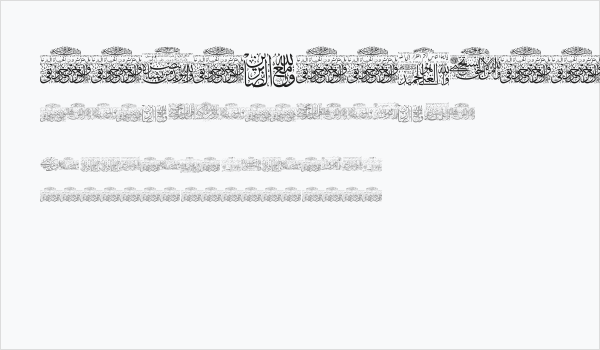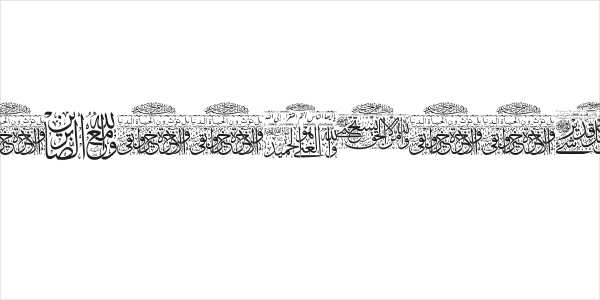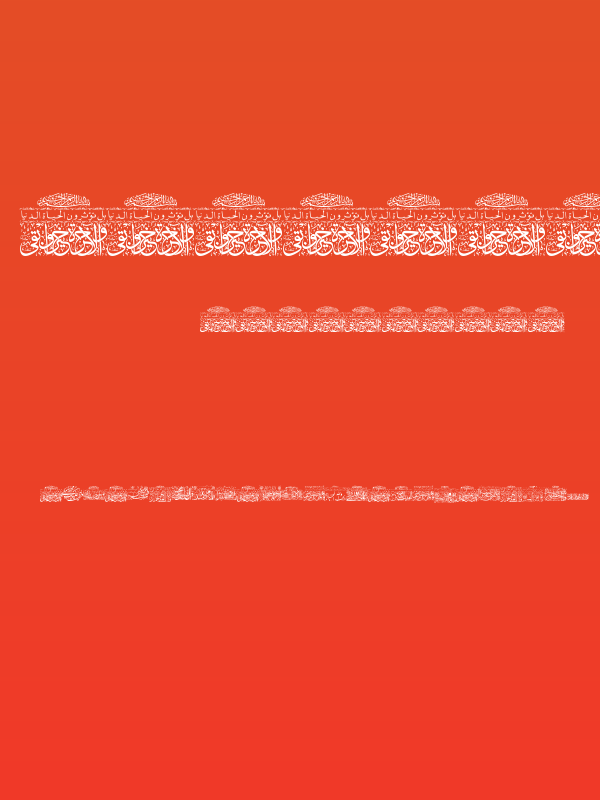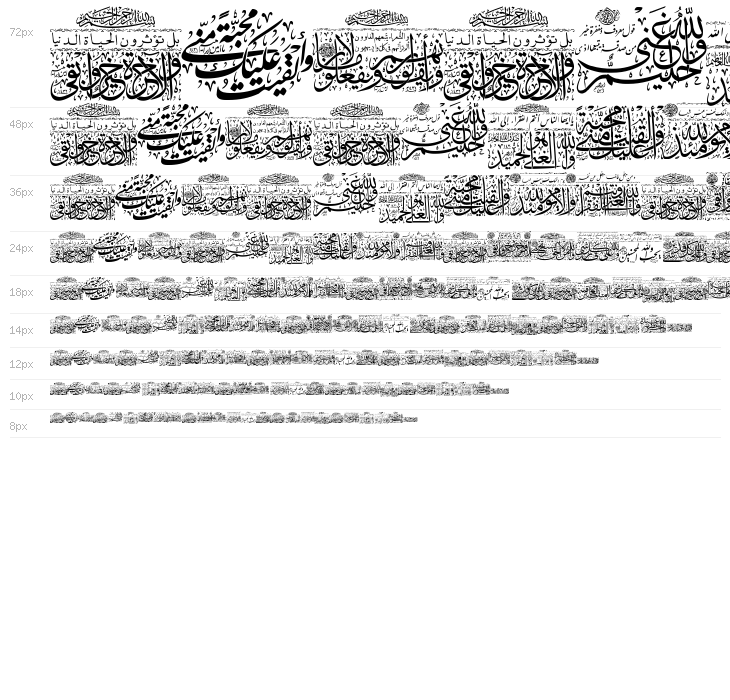
Aayat Quraan 30 Font
Aayat Quraan 30 Description
This is not a valid font image. The image appears to contain Arabic script, possibly from a religious or historical text, arranged in a decorative manner. It does not display a standard font set with individual characters from A-Z, a-z, 0-9, and special symbols as required for font analysis.